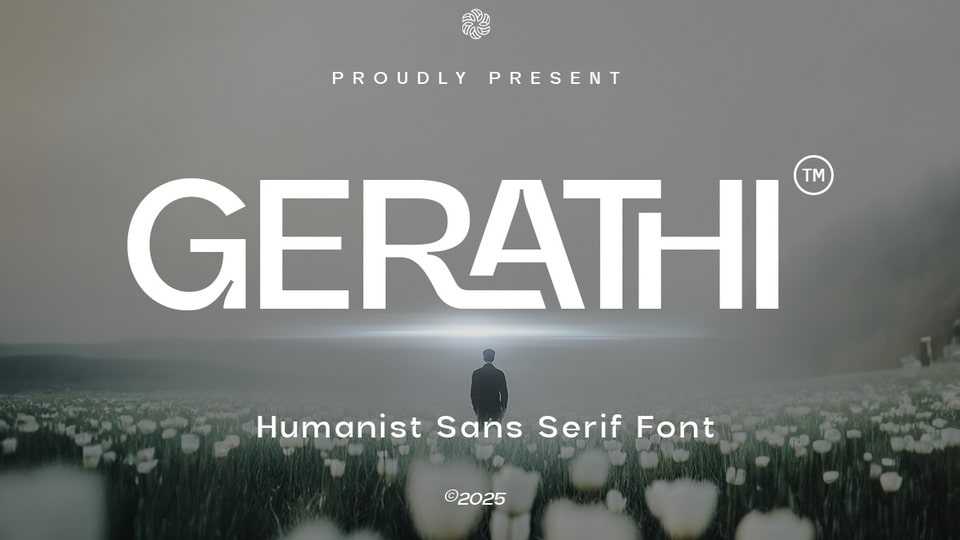
Download Gerathi font, a modern humanist sans serif typeface that combines geometric precision with smooth humanist curves, creating a balance between professionalism and warmth.